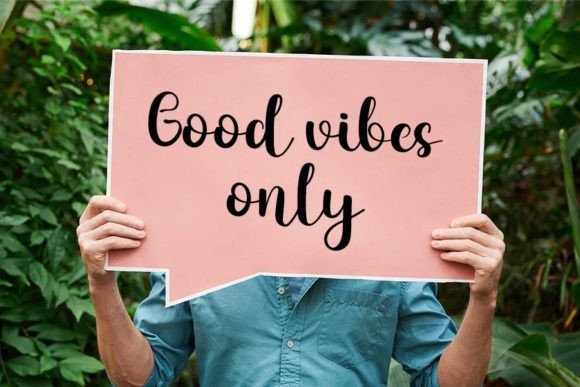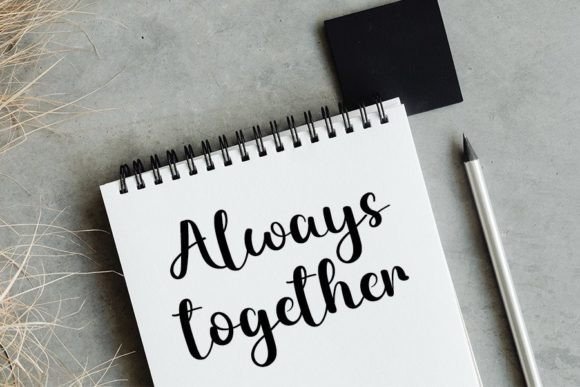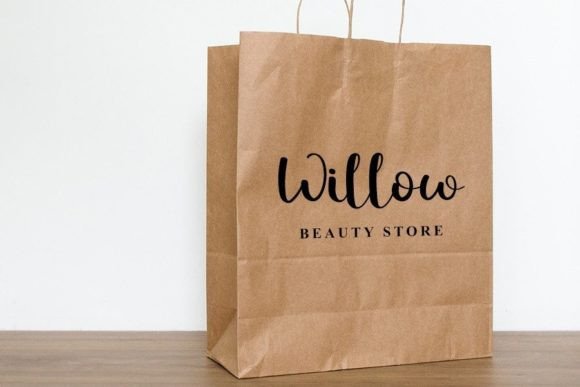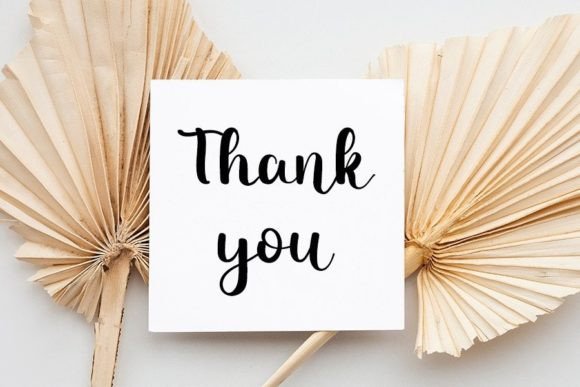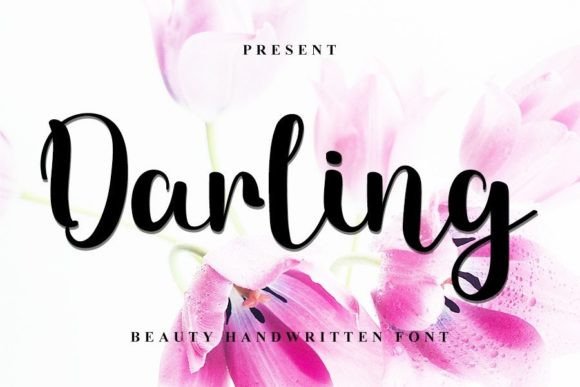
Discover the Elegance of Darling Font: A Timeless Handwritten Style
Are you on the hunt for a font that exudes elegance and sophistication? Look no further than Darling Font, a stunning handwritten font that is sure to capture your heart. With its neat and beautiful design, Darling Font is perfect for a wide range of projects, from creative crafts to professional designs.
The Distinctive Style of Darling Font
Darling Font is described by its elegant touch, which sets it apart from other handwritten fonts. Its incredibly distinct and timeless style makes it an excellent choice for designers and crafters looking to add a touch of sophistication to their work. Whether you’re creating a logo, a poster, or a digital graphic, Darling Font is sure to make your design stand out.
What Makes Darling Font So Special?
So, what makes Darling Font so special? Here are just a few reasons why designers and crafters are falling in love with this beautiful font:
- Elegant and Refined: Darling Font features a sleek and refined design that is perfect for creating elegant and sophisticated designs.
- Handwritten with Love: Darling Font is a handwritten font, which gives it a personal and unique touch that’s hard to find with digital fonts.
- Timeless Style: Unlike trendy fonts that quickly go out of style, Darling Font has a timeless quality that ensures your designs will remain stylish for years to come.
- Versatile: Darling Font is incredibly versatile, making it suitable for a wide range of projects, from formal documents to creative crafts.
How to Use Darling Font in Your Designs
Using Darling Font in your designs is easy! Here are a few tips to get you started:
- Pair it with Other Fonts: Darling Font pairs beautifully with other fonts, so don’t be afraid to experiment with different combinations.
- Play with Sizes: Darling Font looks great in a variety of sizes, from large headings to smaller body text.
- Add Decorations: Consider adding decorations, such as flourishes or graphics, to give your designs an extra touch of elegance.
Darling Font is perfect for designers and crafters who are looking for a beautiful and elegant font to add to their collection. Whether you’re creating professional designs or working on a creative craft project, Darling Font is sure to inspire your creativity and help you produce stunning results.
Get Ready to Fall in Love with Darling Font
In conclusion, Darling Font is a beautiful and elegant handwritten font that is perfect for designers and crafters looking to add a touch of sophistication to their work. With its distinct and timeless style, Darling Font is sure to inspire your creativity and help you produce stunning results. So why not give it a try and see for yourself why Darling Font is the perfect choice for your next project?